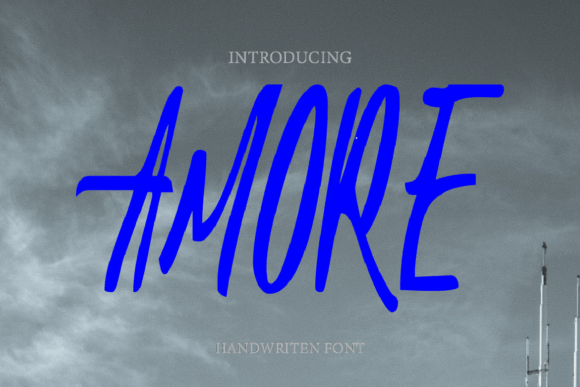
Introducing Amore Font: Elevate Your Designs with a Stylish and Confident Handwritten Style
Are you tired of using the same old fonts for your design projects? Look no further than Amore Font, a gorgeous and bold handwritten font that’s sure to add a touch of style and sophistication to your work. Crafted to give your headlines and logotype projects a confident and dynamic look, Amore Font is the perfect choice for designers and crafters looking to make a statement.
A Font that Reads Strong and Confident
Amore Font is designed to exude strength and confidence, making it perfect for headlines, titles, and logotypes. Its bold and dynamic appearance is sure to grab attention and leave a lasting impression on your audience. Whether you’re working on a branding project, a marketing campaign, or simply want to add some personality to your designs, Amore Font is the perfect choice.
Add a Touch of Nostalgia to Your Designs
One of the standout features of Amore Font is its ability to add a touch of nostalgia to your designs. With its classic and timeless look, Amore Font is reminiscent of traditional handwritten fonts from the past, but with a modern twist. This makes it perfect for designers and crafters who want to add a vintage or retro touch to their work.
Amore Font is incredibly versatile and can be used for a wide range of design projects, including:
- Headlines and titles: Amore Font is perfect for creating bold and eye-catching headlines and titles that are sure to grab attention.
- Logotypes: With its confident and dynamic appearance, Amore Font is ideal for creating custom logotypes that make a statement.
- Branding: Amore Font can be used to add a touch of personality and style to your branding projects, including business cards, letterheads, and more.
- Marketing materials: Amore Font is perfect for creating marketing materials, such as brochures, flyers, and posters, that need to stand out from the crowd.
Key Features of Amore Font
So, what makes Amore Font so special? Here are just a few of its key features:
- Bold and dynamic appearance: Amore Font is designed to make a statement, with a bold and dynamic appearance that’s sure to grab attention.
- Handwritten style: Amore Font has a classic handwritten style that’s perfect for adding a touch of personality to your designs.
- Nostalgic feel: With its timeless look, Amore Font is perfect for designers and crafters who want to add a vintage or retro touch to their work.
- High-quality design: Amore Font is crafted with precision and attention to detail, ensuring a high-quality design that’s perfect for professional projects.
In conclusion, Amore Font is a gorgeous and bold handwritten font that’s perfect for designers and crafters looking to add a touch of style and sophistication to their work. With its confident and dynamic appearance, nostalgic feel, and high-quality design, Amore Font is the perfect choice for a wide range of design projects. Whether you’re working on a branding project, a marketing campaign, or simply want to add some personality to your designs, Amore Font is sure to deliver.